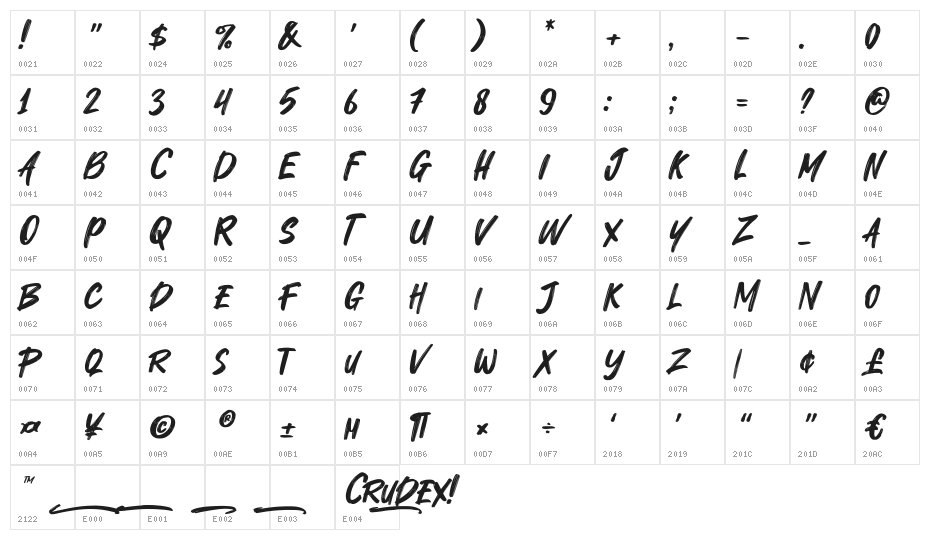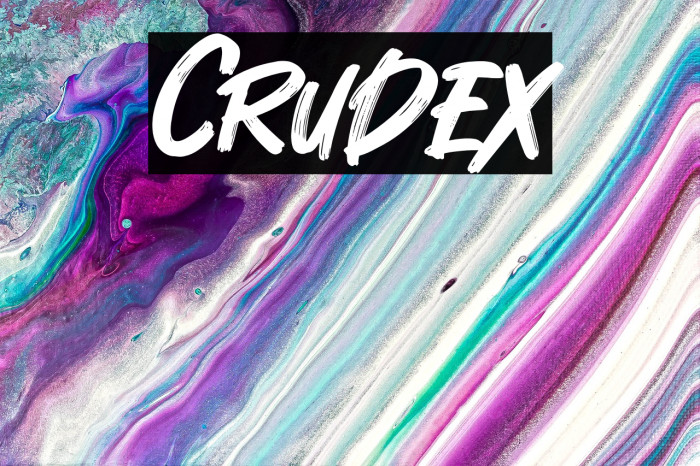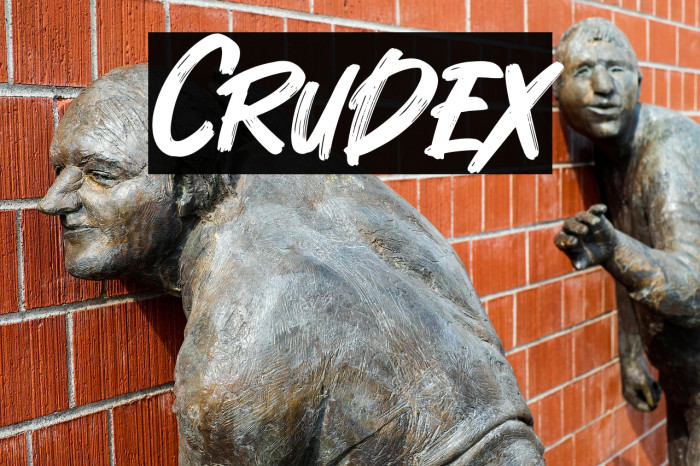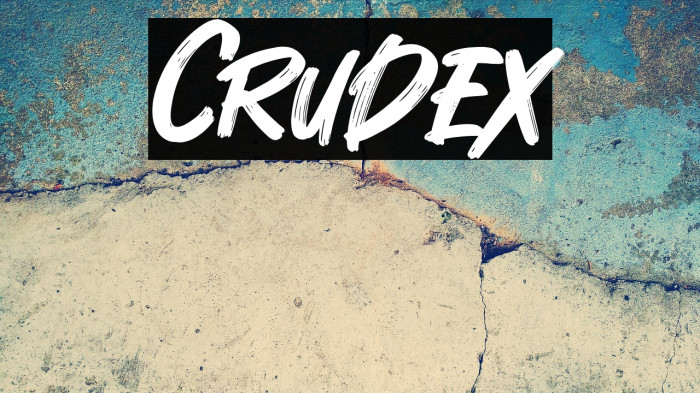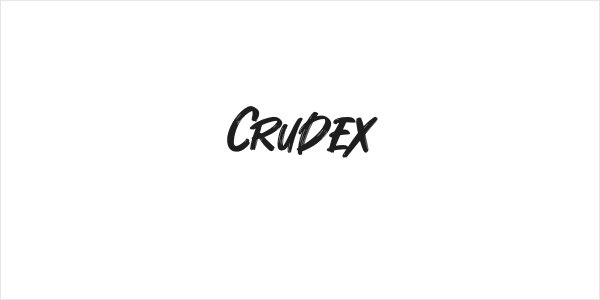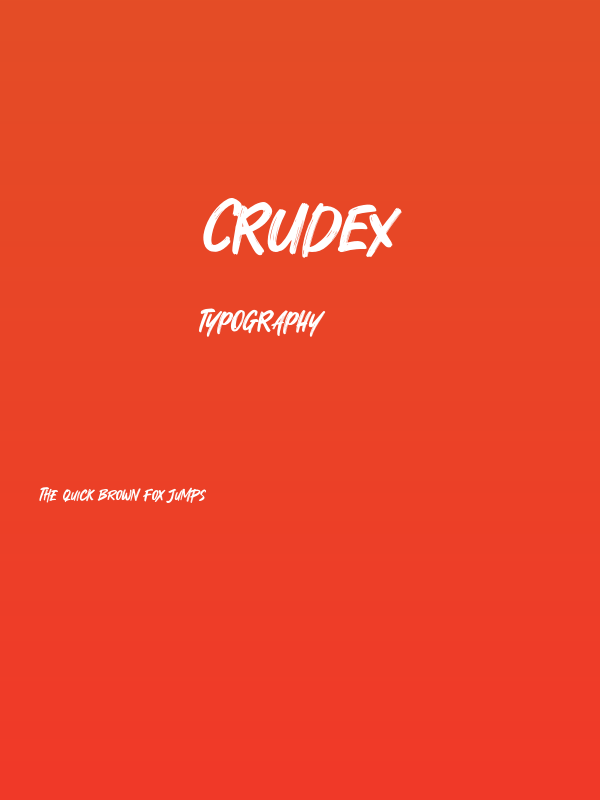
Crudex Font
Crudex Description
This font exudes a bold and dynamic energy, characterized by its brush-like strokes and expressive style. The letters are crafted with a sense of movement and fluidity, giving it a hand-painted appearance. The uppercase and lowercase letters maintain a consistent style, with thick, sweeping lines that vary in width, adding to its artistic flair. The numbers and special characters follow the same expressive design, making the font versatile for creative projects. Its bold presence makes it ideal for attention-grabbing headlines and designs that require a strong visual impact.
| Overall Style | Modern, Artistic |
| Proposed Projects | Ideal for posters, logos, branding, and any design requiring a bold, artistic touch. |